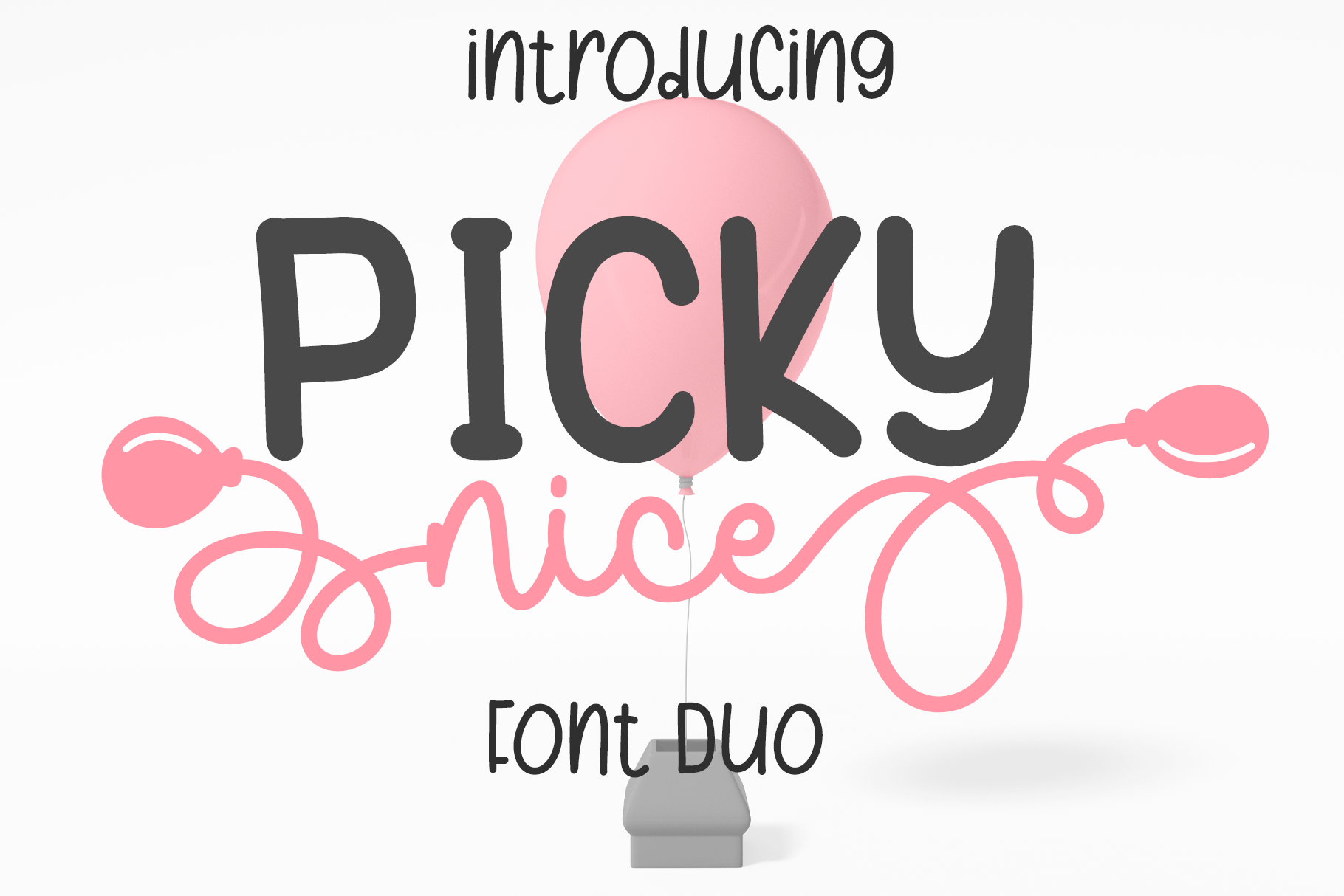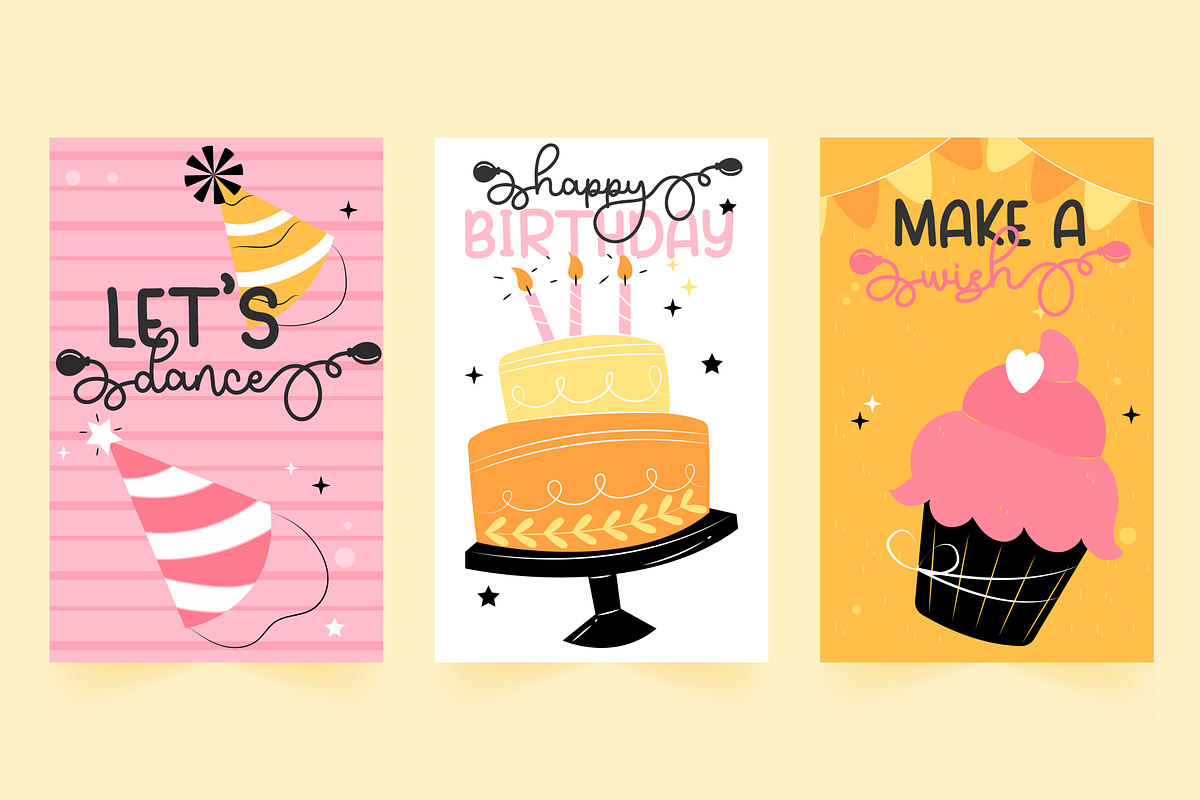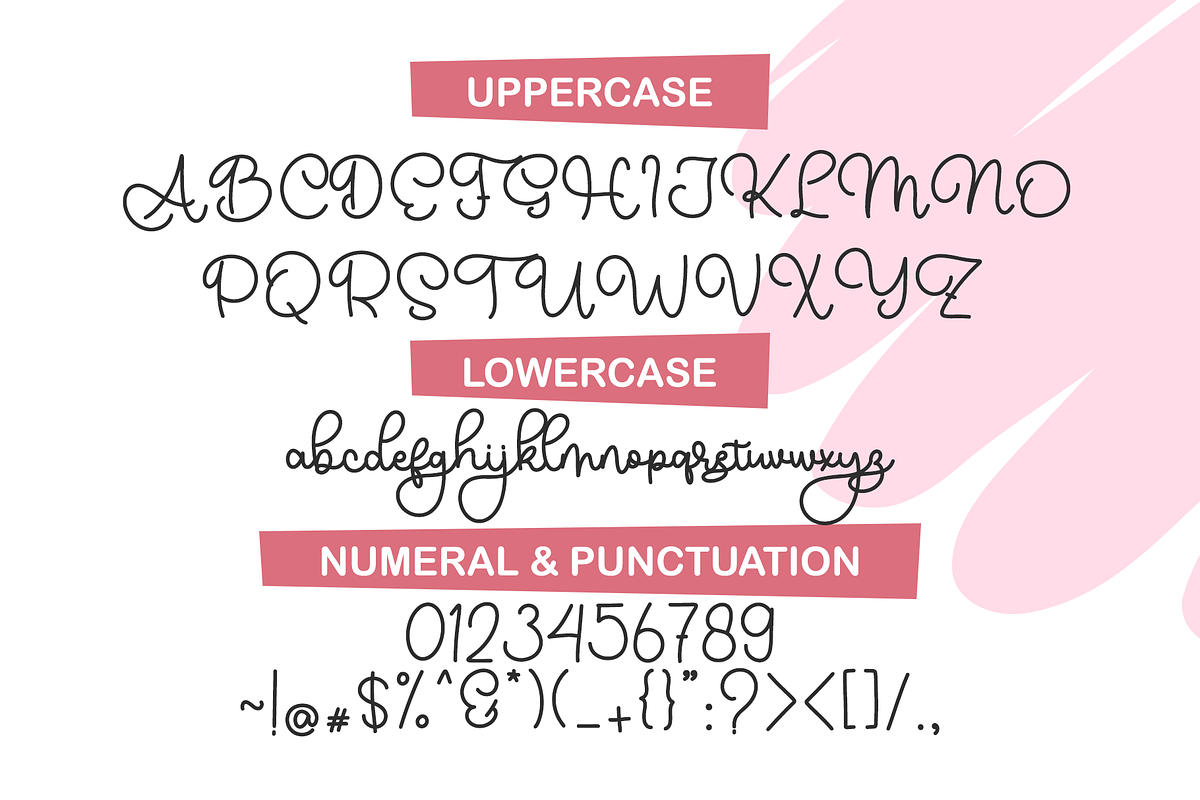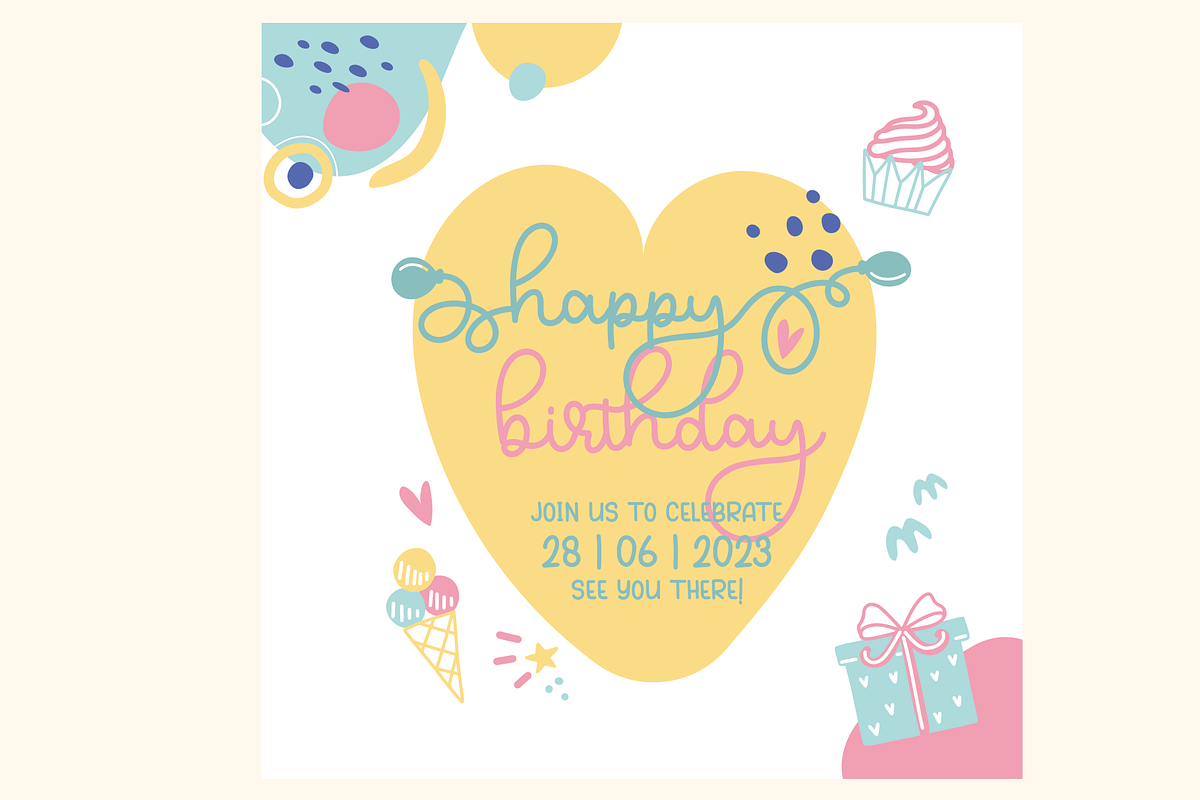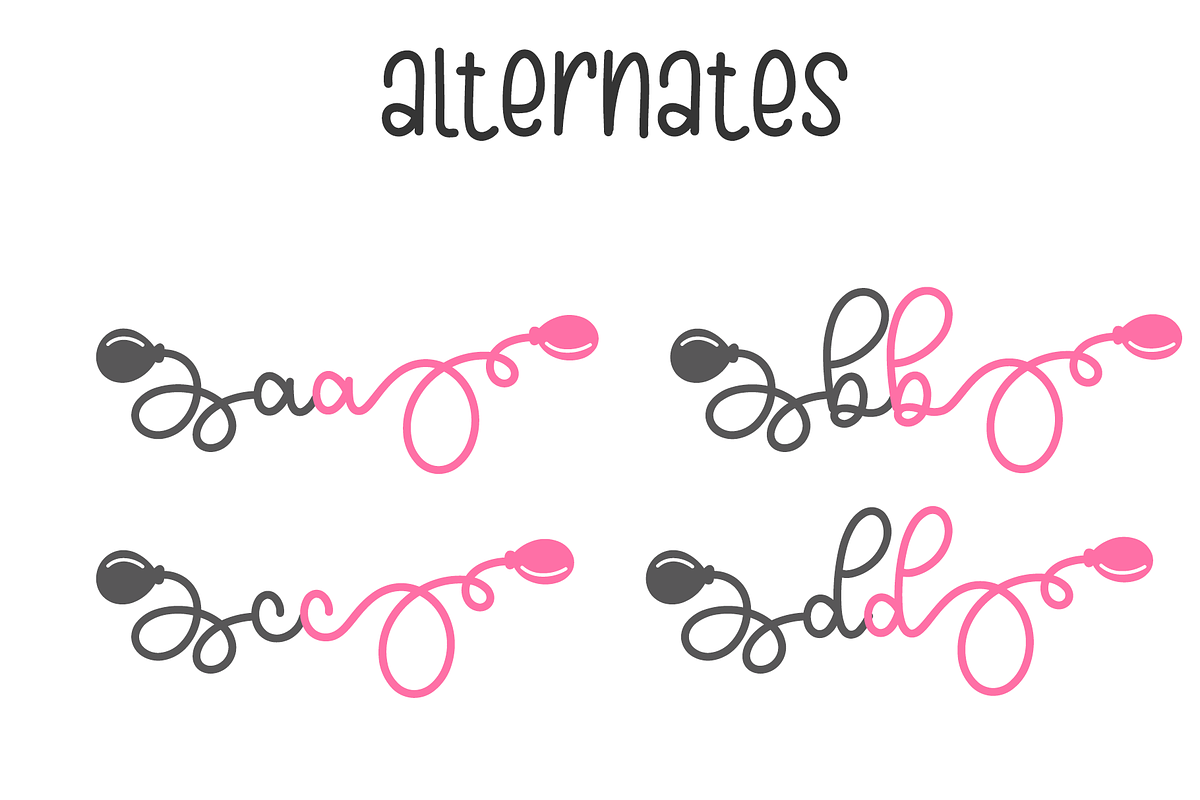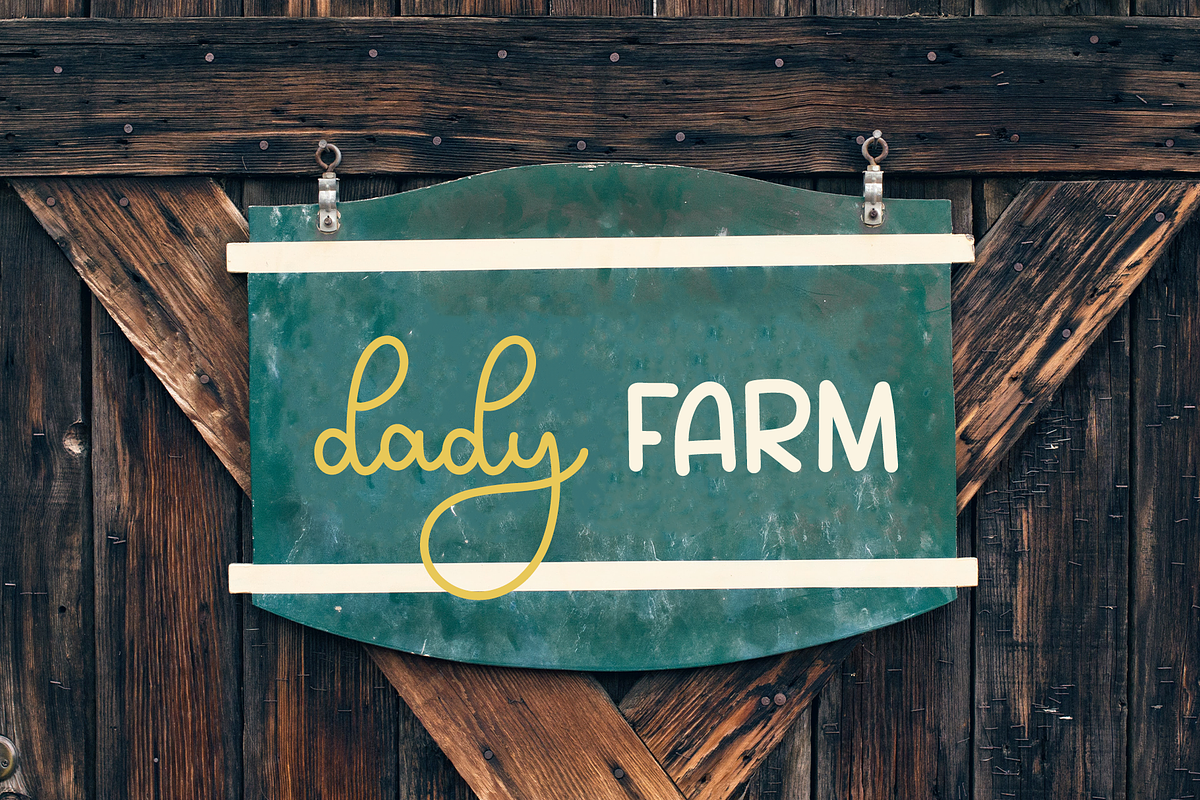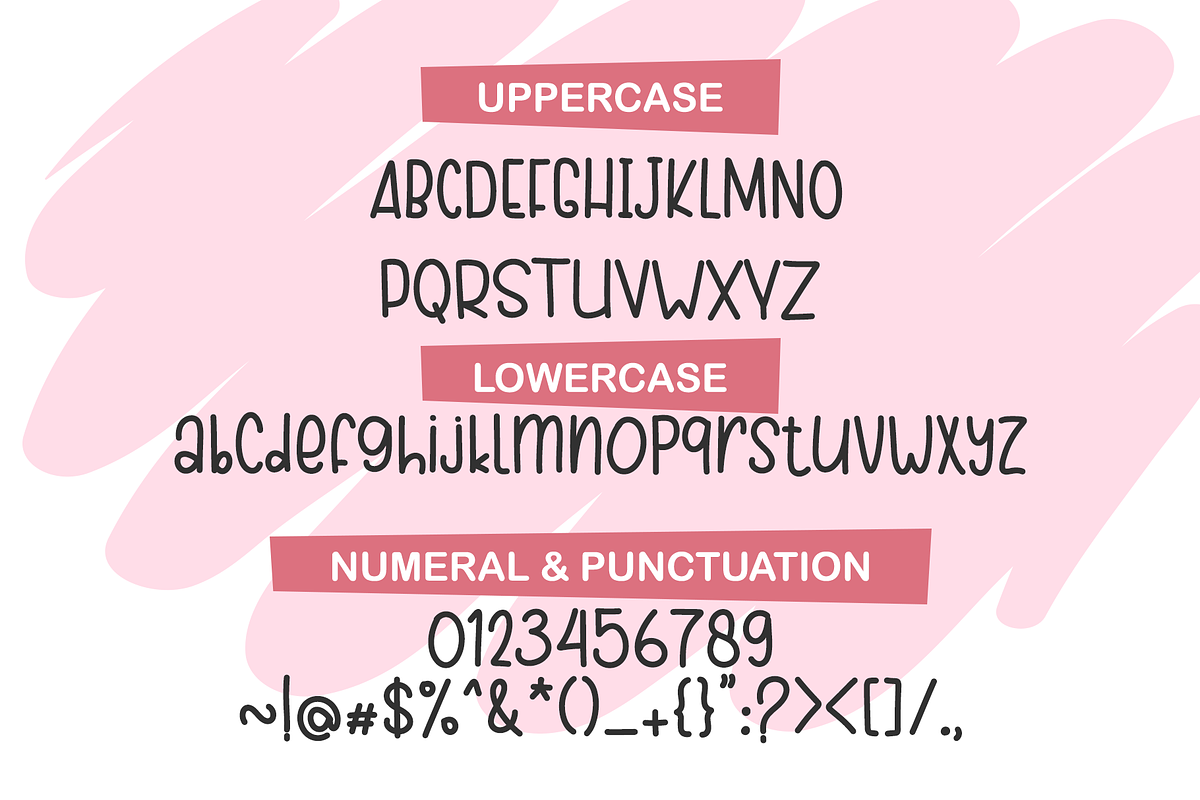
picky nice | Birthday Font
picky nice is a versatile duo font (script and sans serif). It will add a luxury spark to any design project that you wish to create! This font is PUA encoded which means you can access all of the amazing glyphs and ligatures with ease!